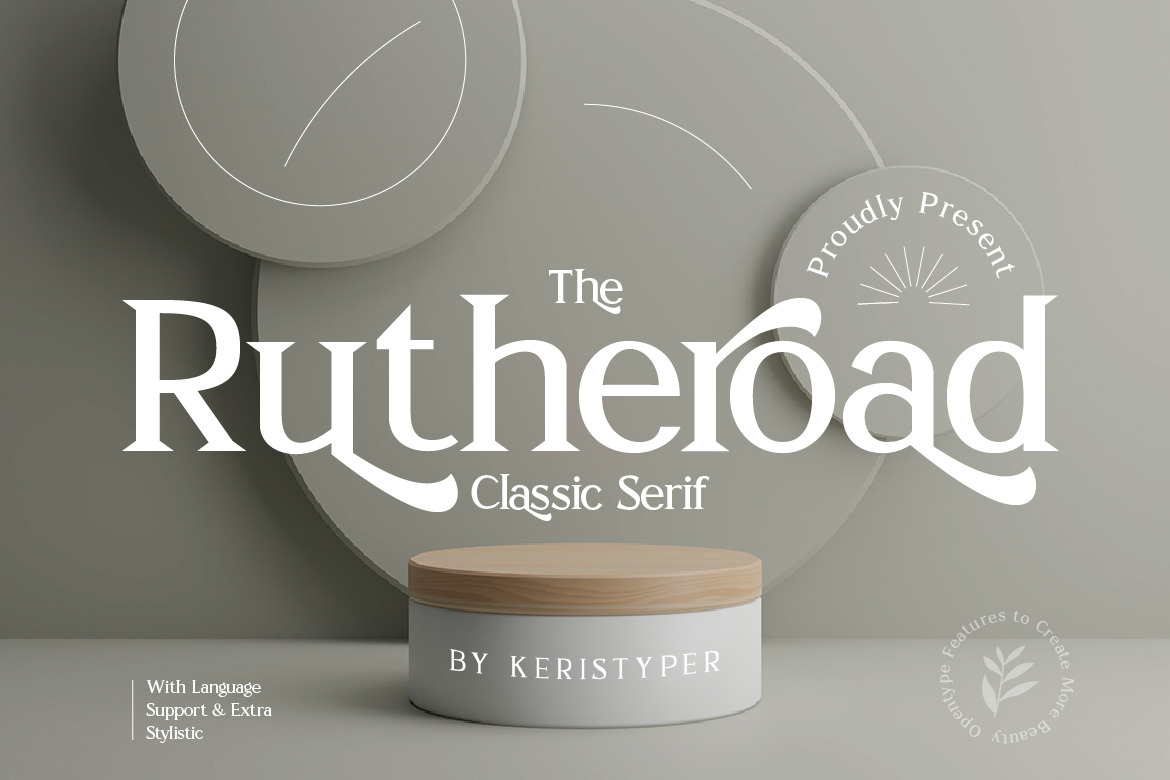
Rutheroad Font
Rotheroad is an elegant classic serif font with a touch of minimalist modern style. This font is good for logo design, Social media, Movie Titles, Books Titles, short text even long text letters, and good for your secondary text font with sans or serif.
Featured:
- Standard Uppercase & Lowercase
- Multilingual : ä ö ü Ä Ö Ü ß ¿ ¡
- Alternate & Ligature